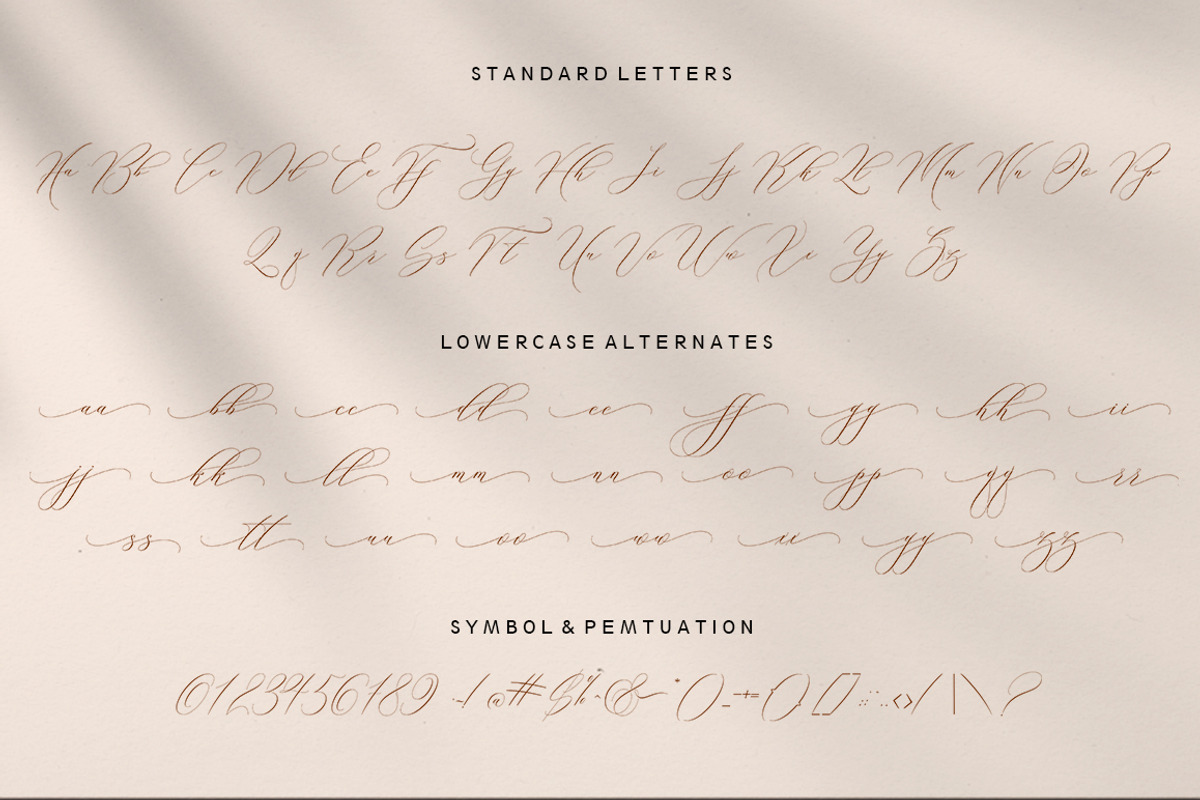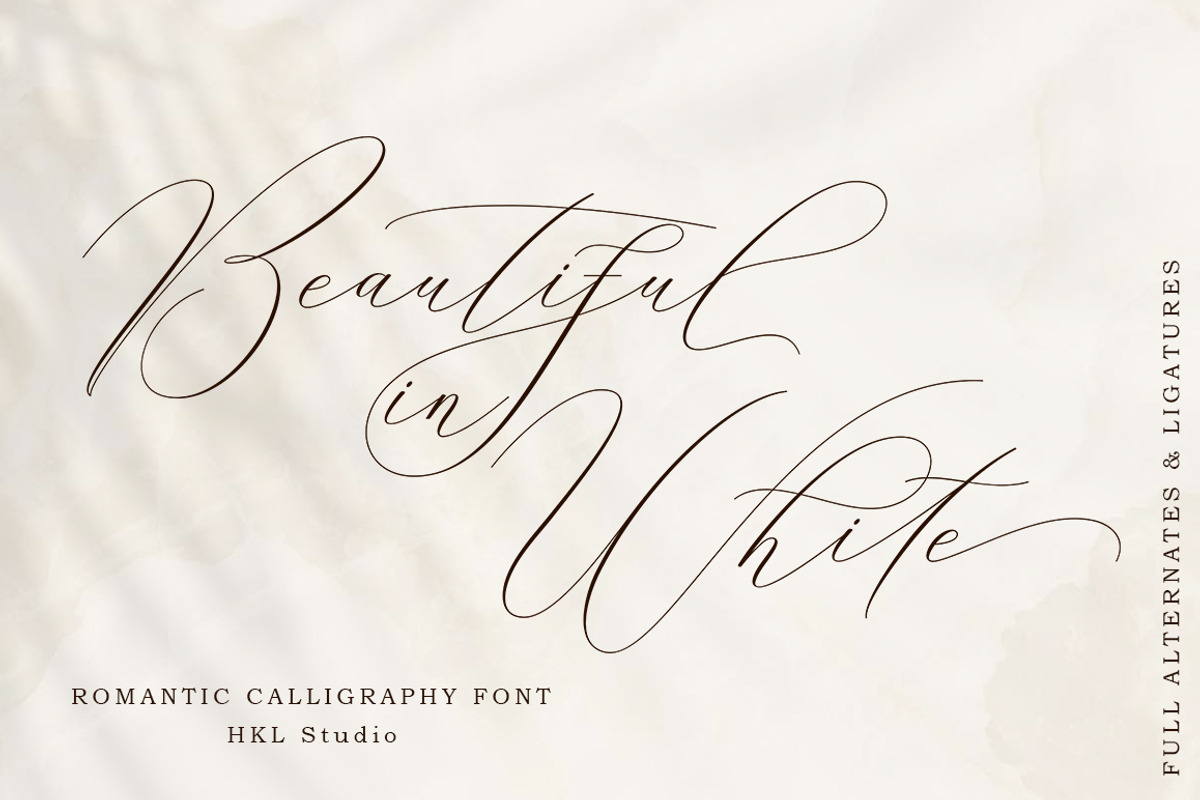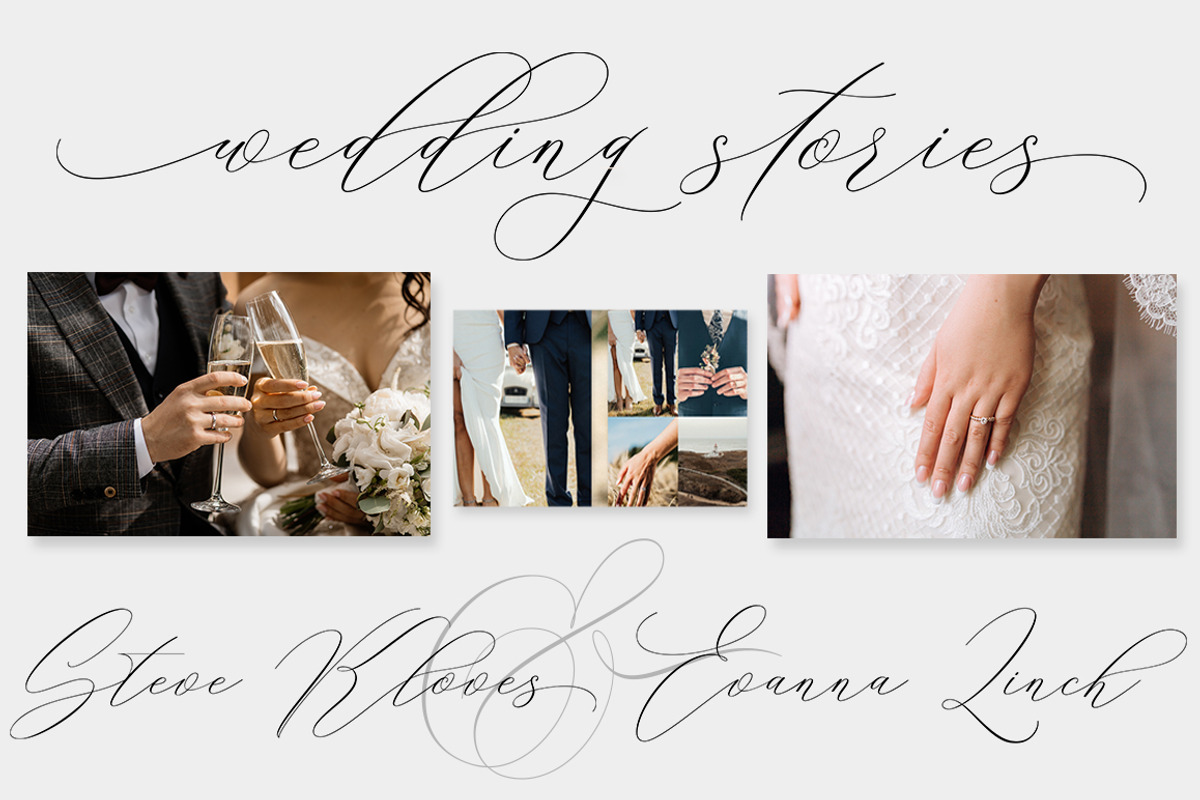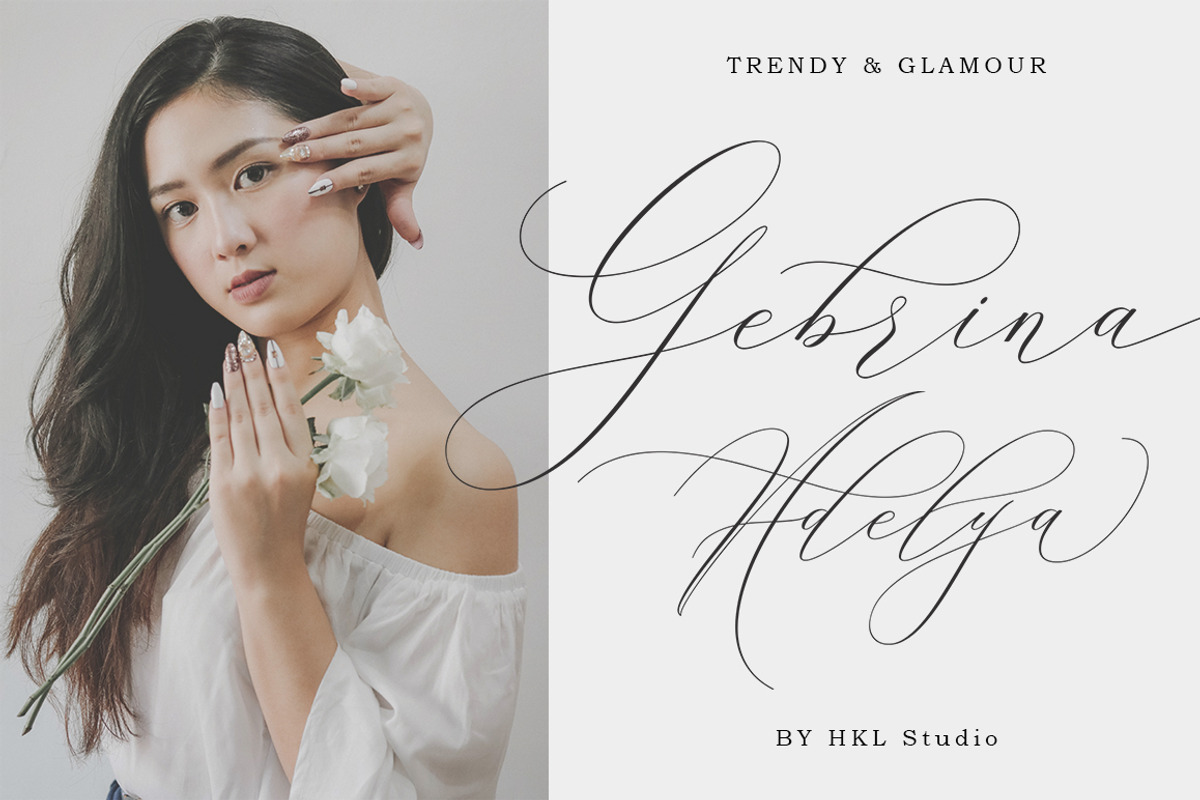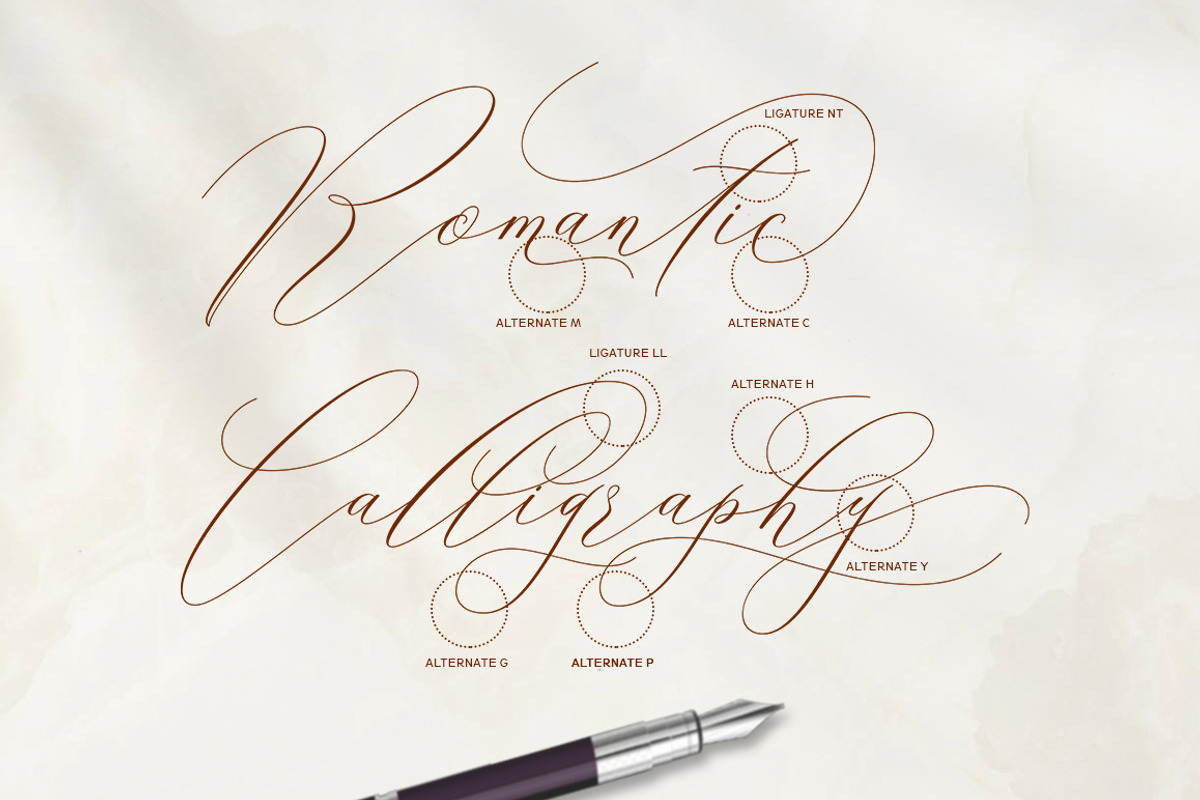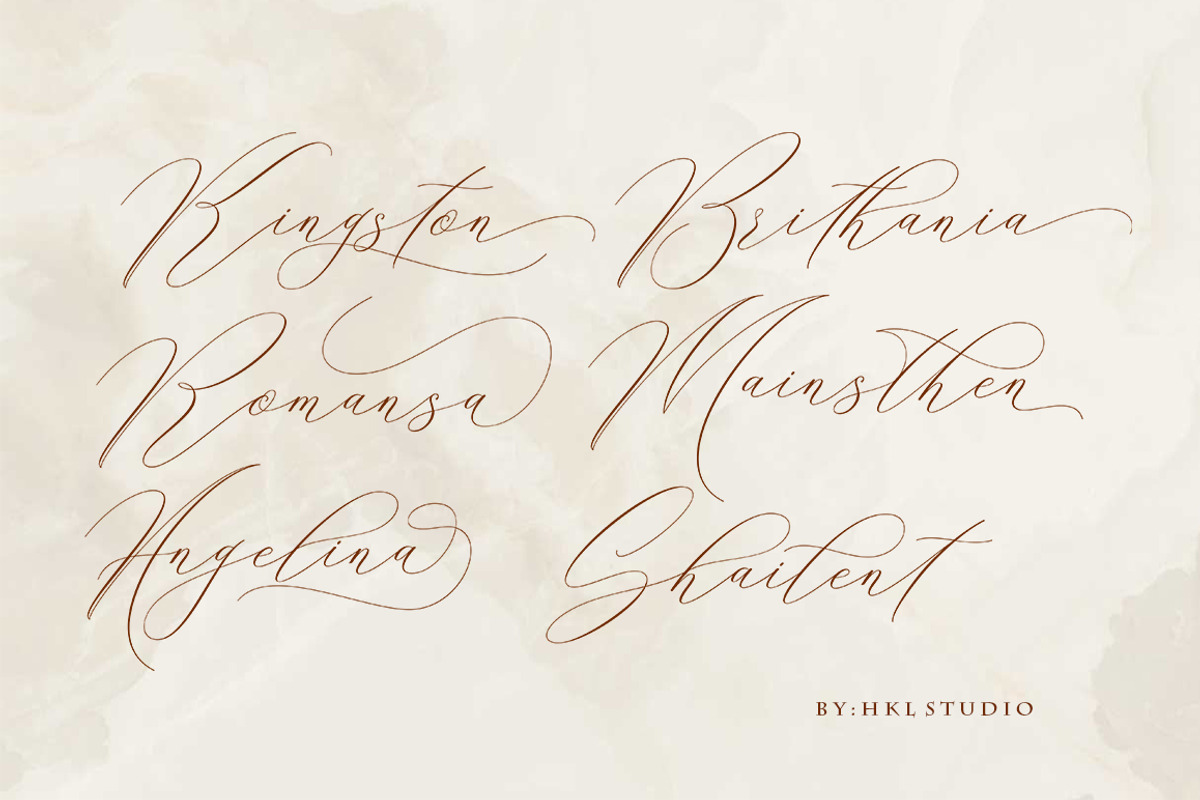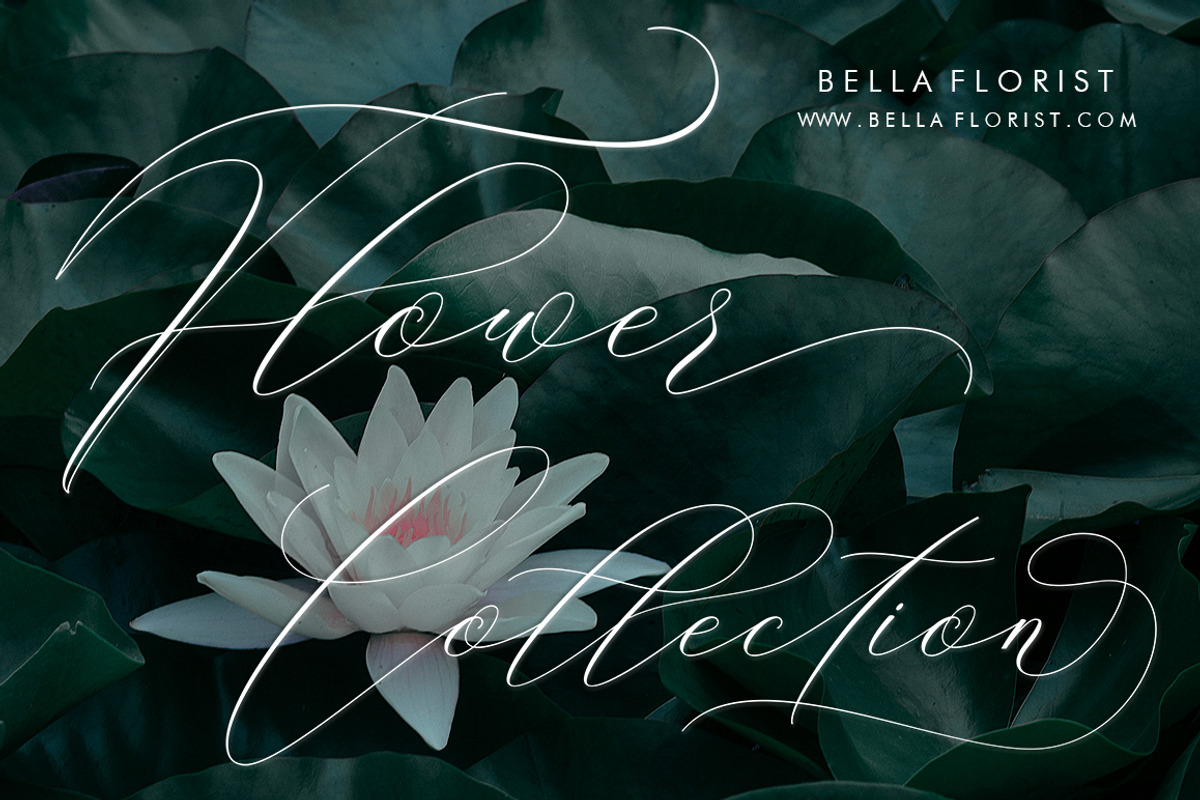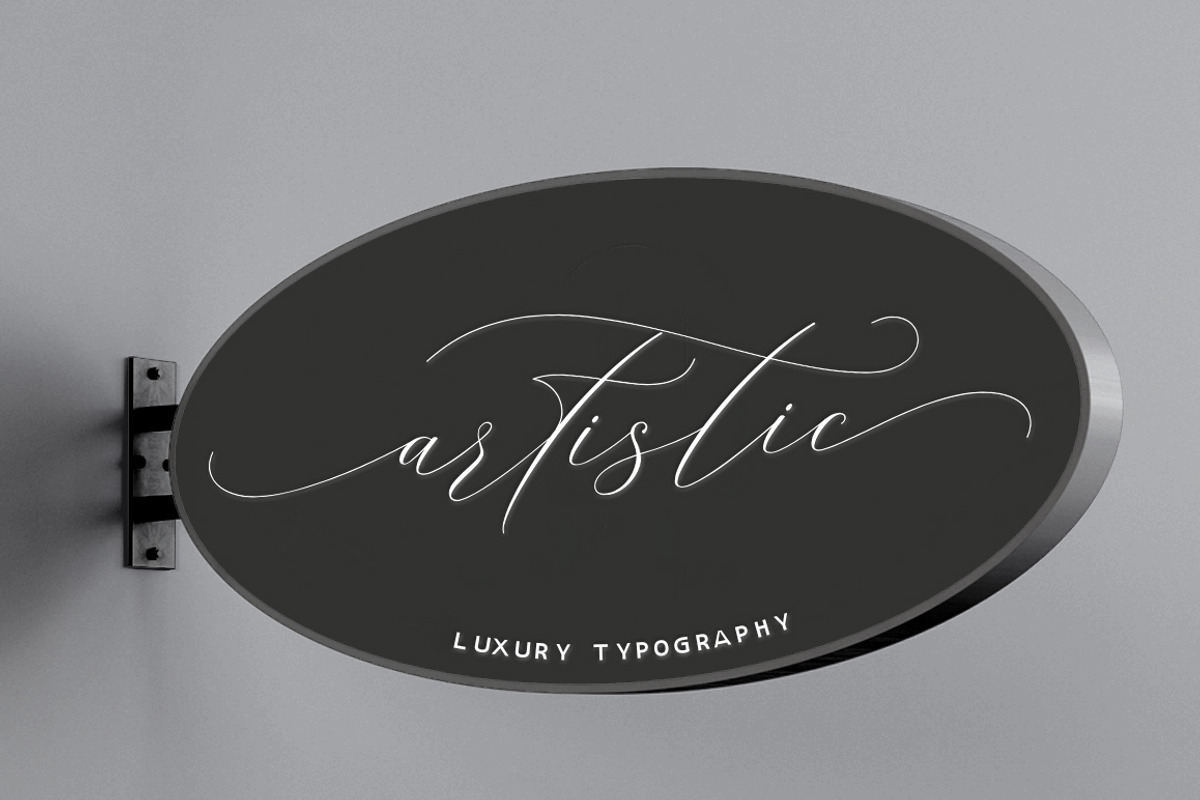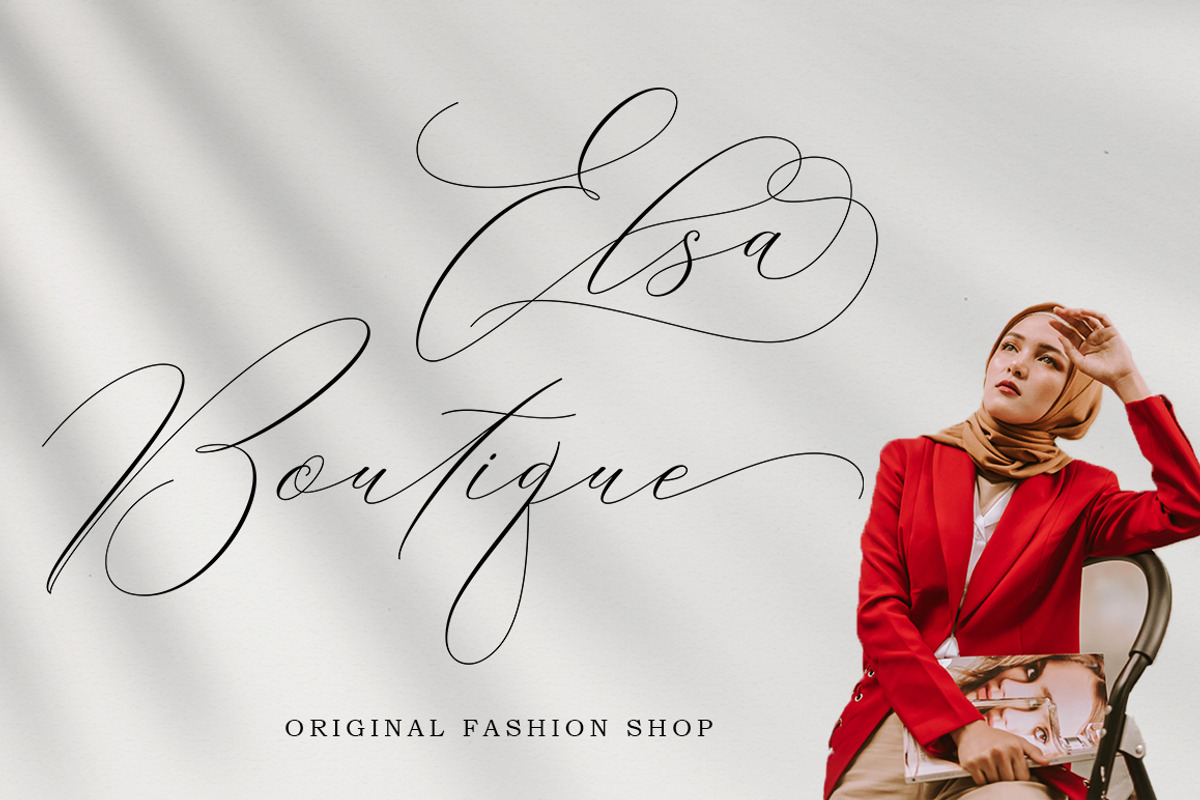
Beautiful in White
This is a modern font script. This font comes in a sleek and italic style, created very slowly for a neat result that will give this font a very elegant impression. There are 410 glyphs in it! so you can get used to it freely and follow the current trends.
With a style like this, this font is suitable for logos, branding projects, home appliance designs, product packaging, mugs, quotes, posters, shopping bags, logos, t-shirts, book covers, business cards, invitation cards, congratulations. cards, and all your other beautiful projects.
You can use this font for your work very easily. Because there are many features in it. Contains full set of lowercase and uppercase letters, punctuation, numbers, web fonts, and multilingual support. This font also includes several ligatures and alternative styles for the Stylistic Set for those of you who have software that can work with OpenType (Corel Draw / Photoshop / Illustrator / InDesign).